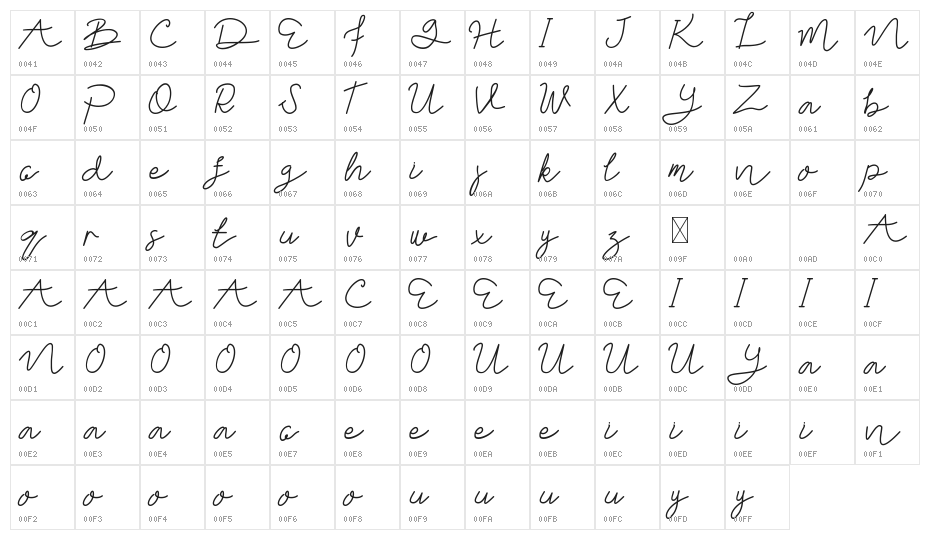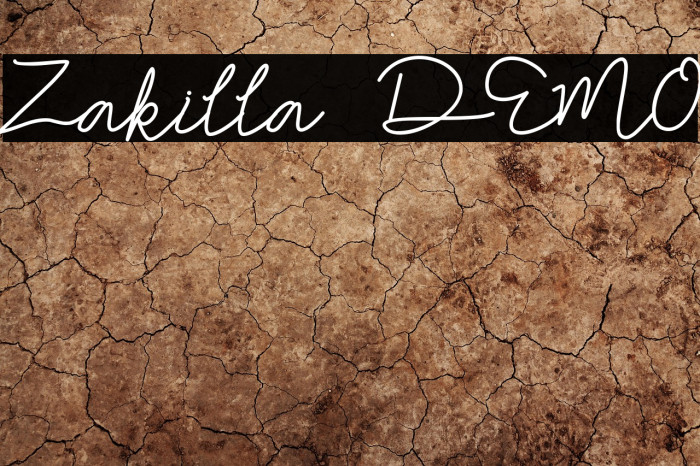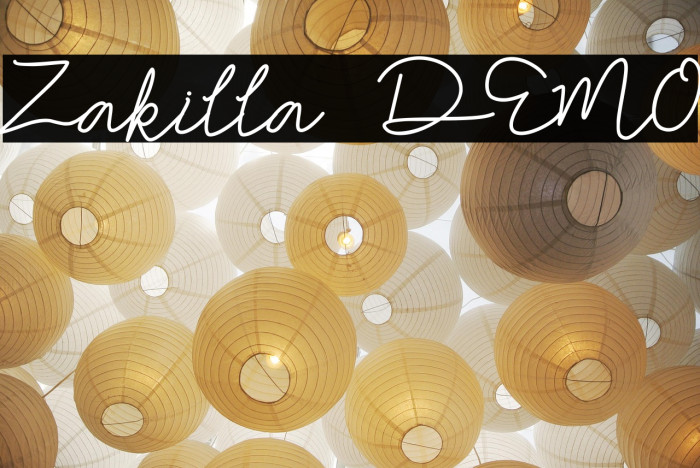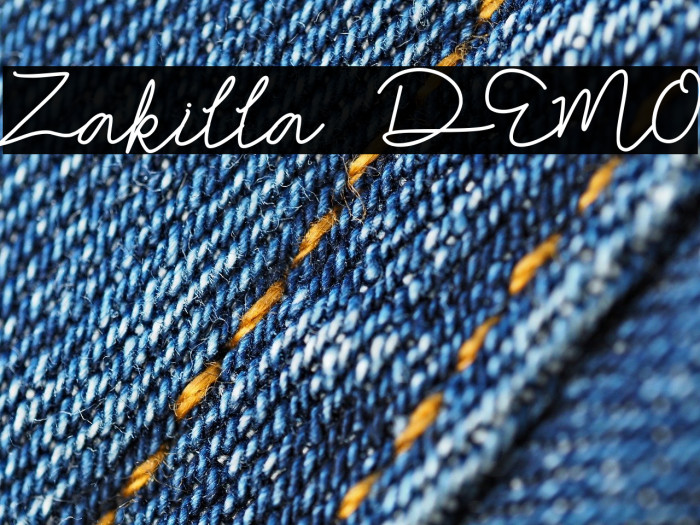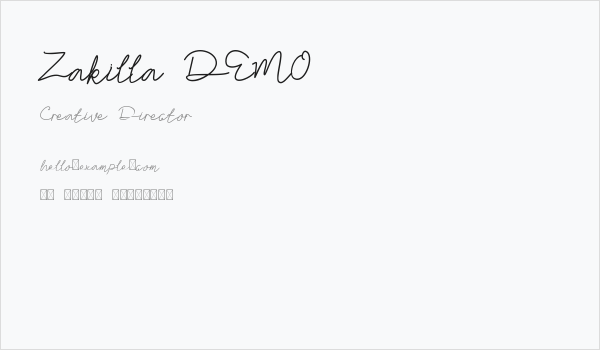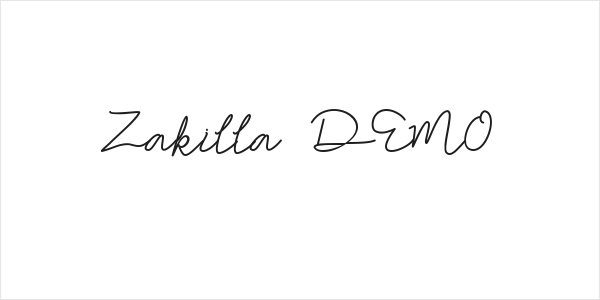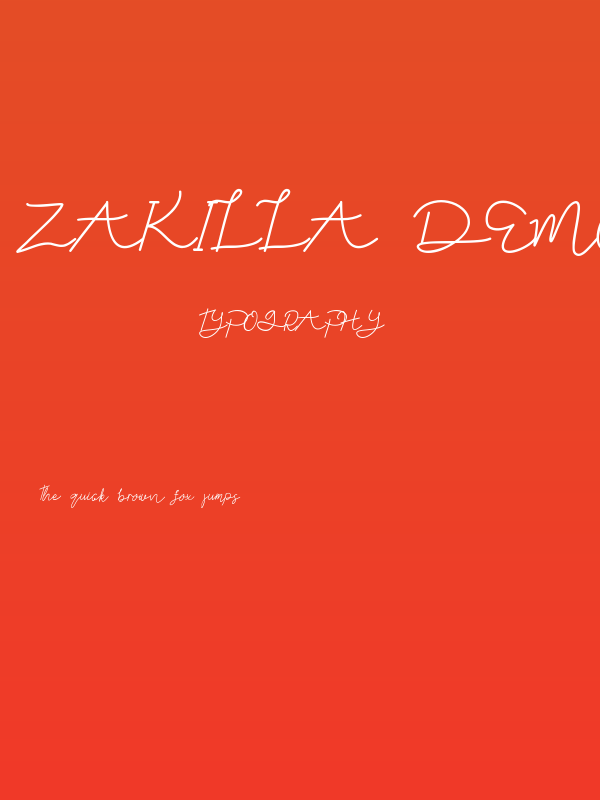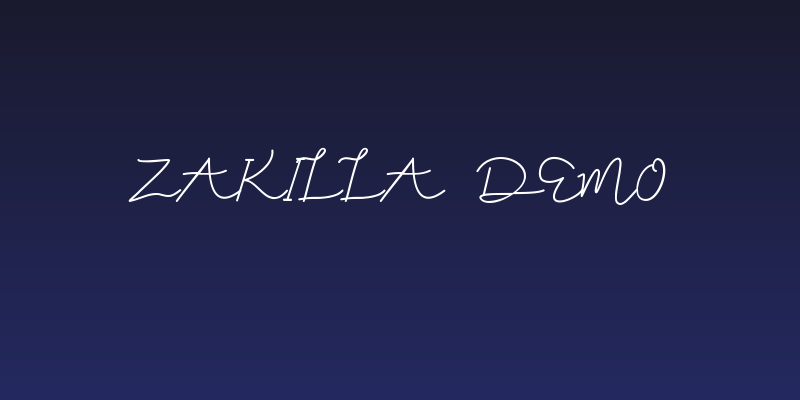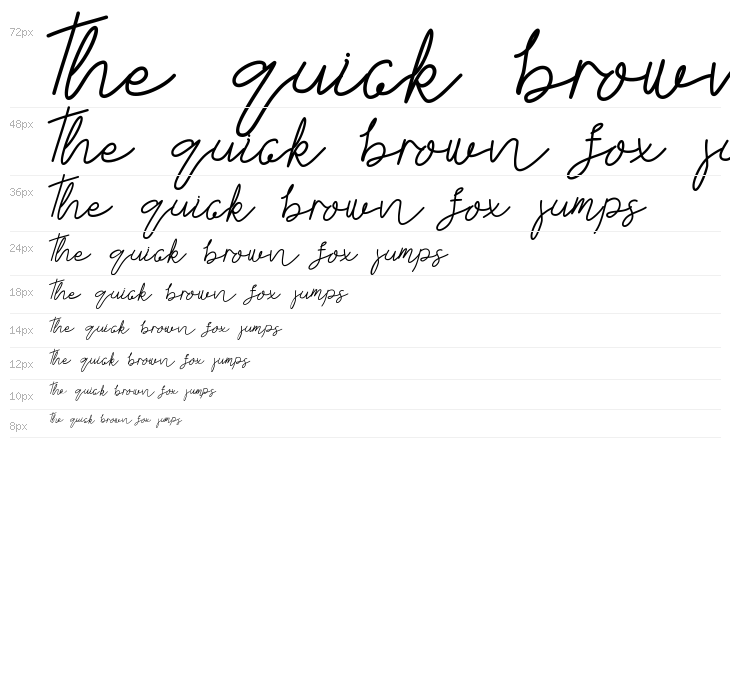
Zakilla DEMO Font
Zakilla DEMO Description
This font exudes a casual and flowing handwritten style, characterized by its smooth, cursive strokes that connect seamlessly from one letter to the next. The letters are elegantly elongated, with a slight slant that adds to the overall fluidity and grace of the design. Uppercase letters maintain a consistent height, while lowercase letters are slightly smaller, enhancing readability. The font's organic and personal touch makes it ideal for projects that require a humanistic and approachable feel. Its balanced weight and consistent stroke width ensure clarity and legibility, even in smaller sizes. The font's playful yet sophisticated appearance makes it versatile for a variety of creative applications.